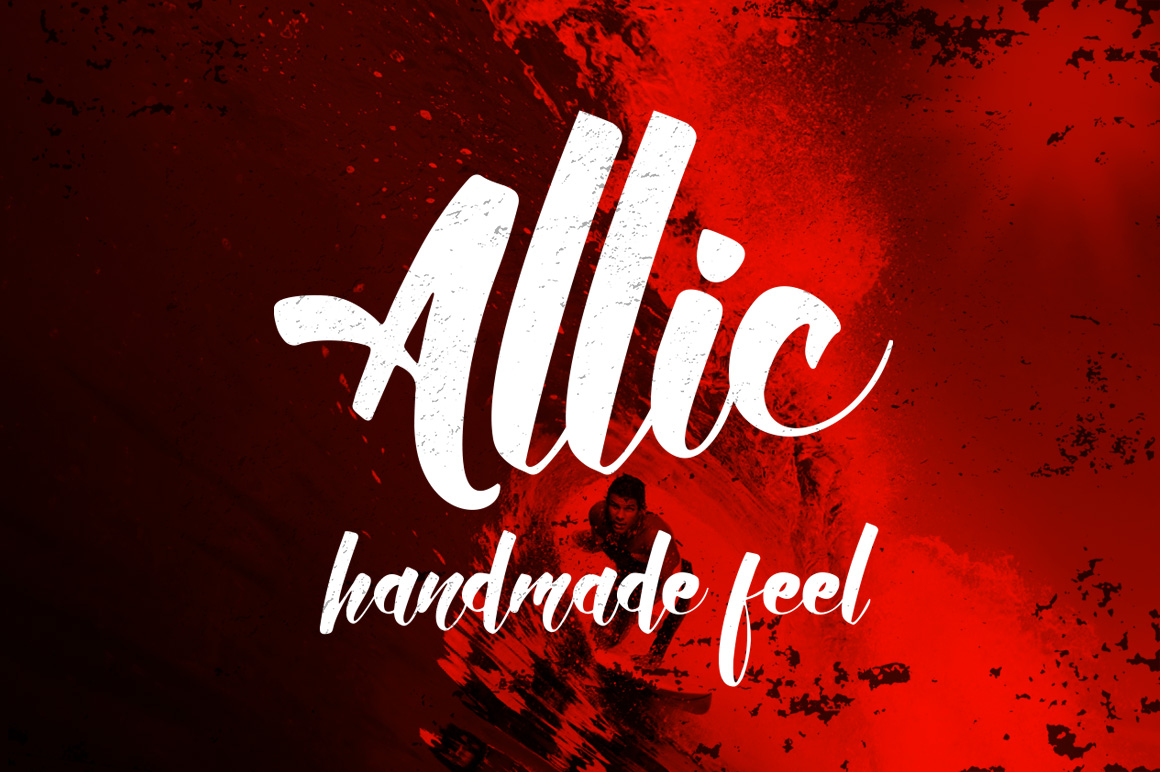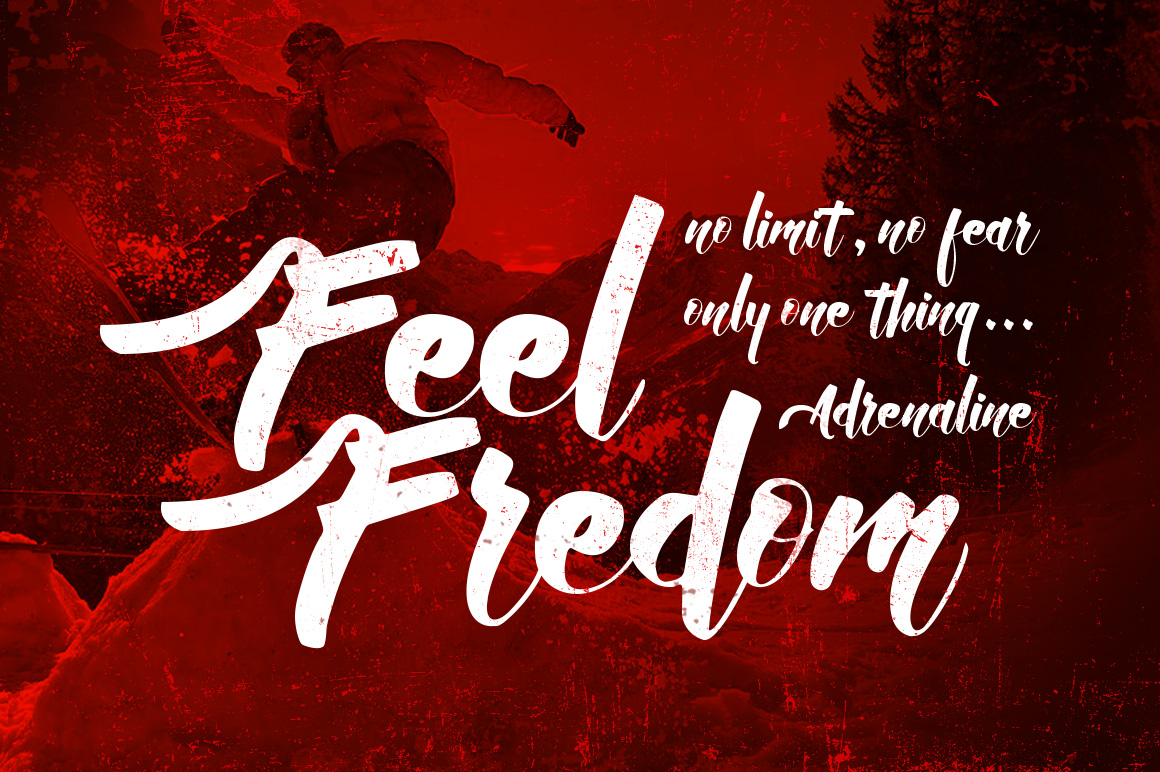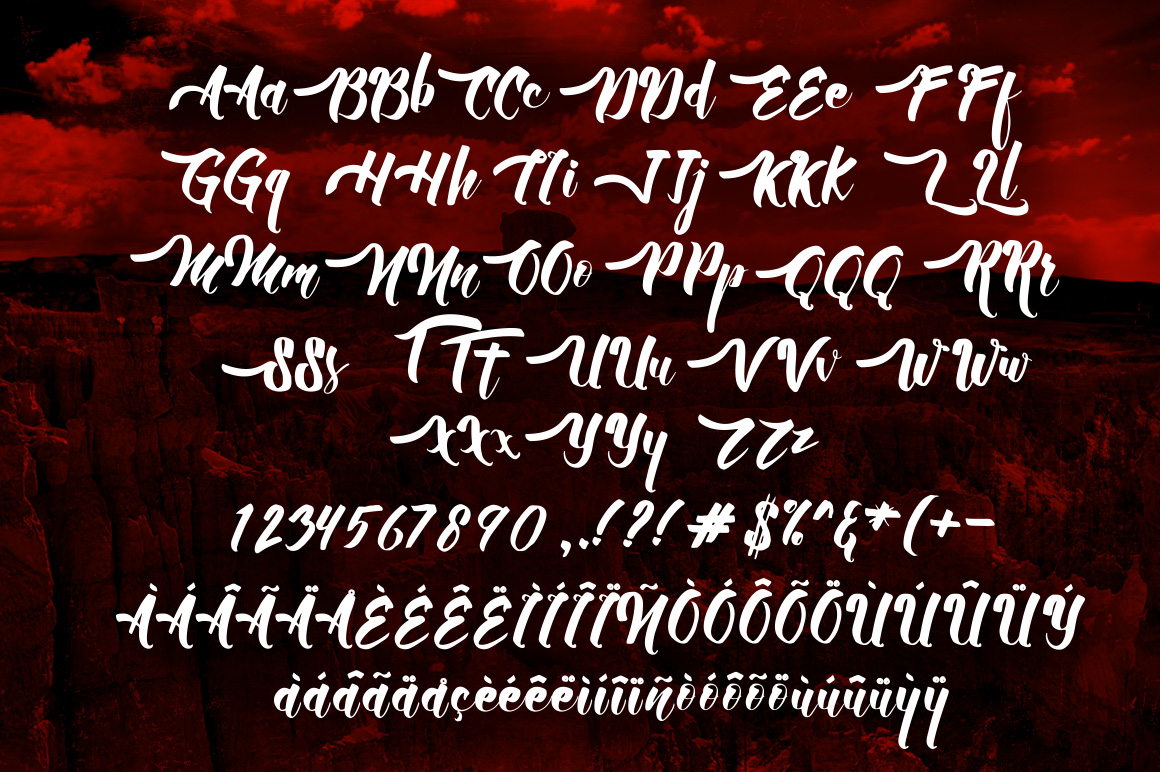
Allic Handmade Font
Here is my new product, It’s called Allic Typeface. This is good for projects like a sports designs, logos, t-shirt, labels, posters, brand names, sport events etc . It comes with Uppercase, Lowercase, Numbers, Punctuations, Currency, Multilingual characters, Stylistic Alternates for the Uppercase letters.
Designer Name: | iTypeface |
Classification: | Brush, Calligraphy, Handwritten, Script |